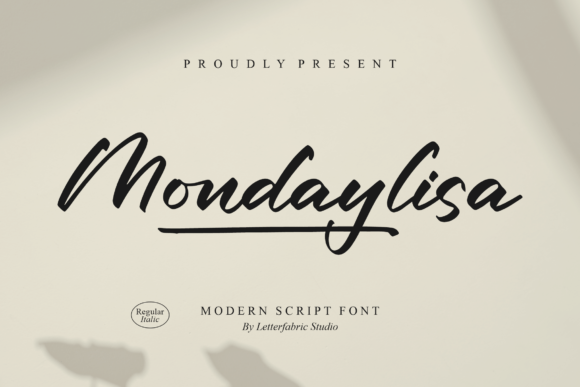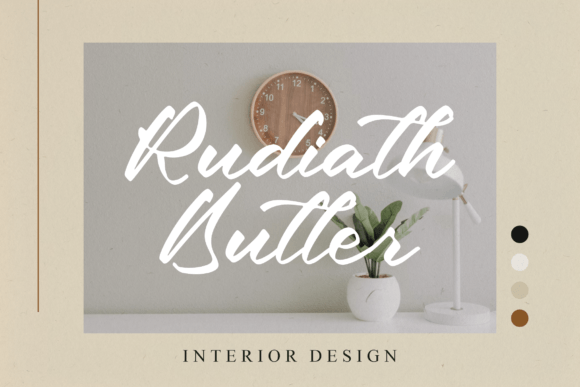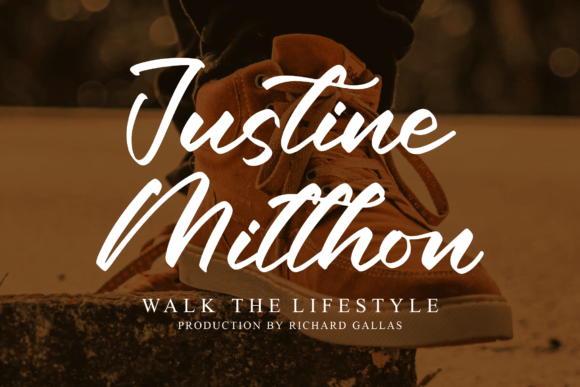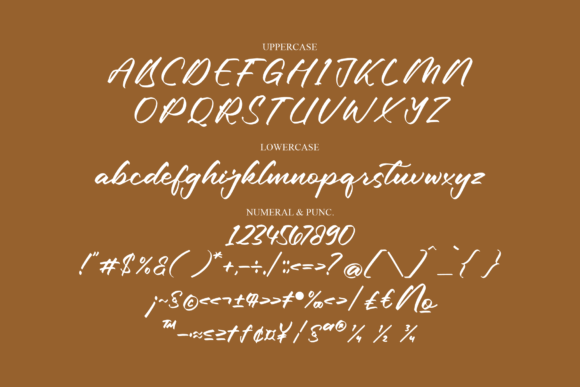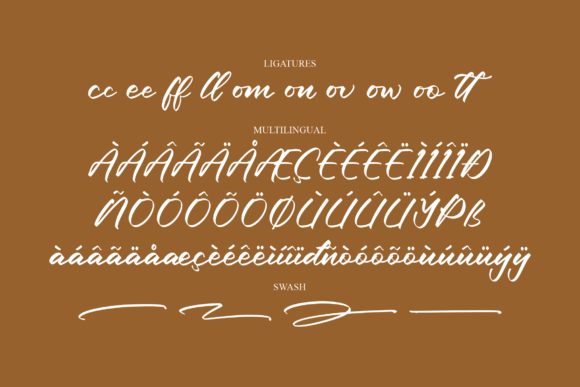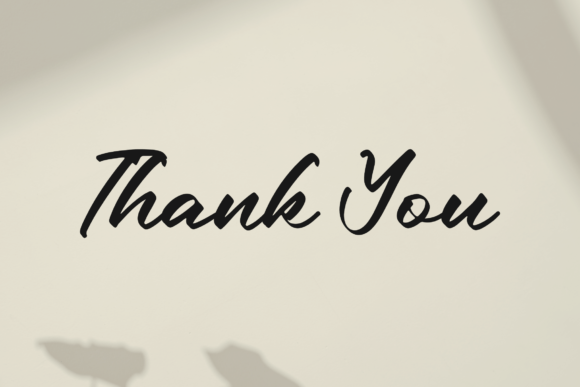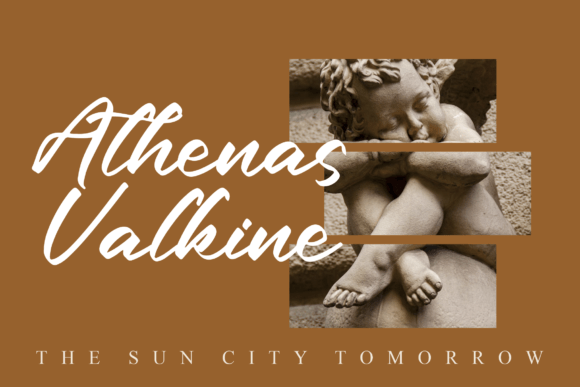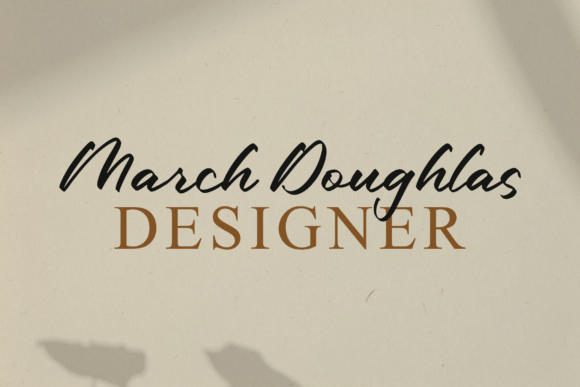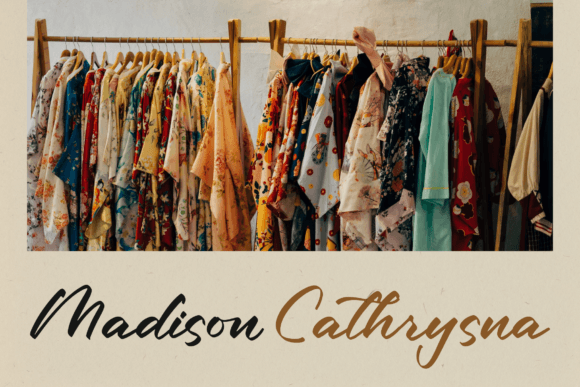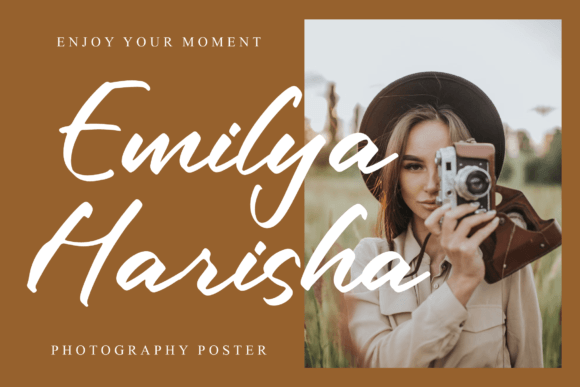
Mondaylisa Font
About Mondaylisa Font
Mondaylisa is a versatile and contemporary script font that seamlessly blends modernity with elegance, making it an ideal choice for a wide range of creative projects. Whether you are working on logos, branding initiatives, homeware designs, product packaging, personalized mugs, inspiring quotes, eye-catching posters, chic shopping bags, trendy T-shirt graphics, captivating book covers, stylish name cards, elegant invitation cards, heartfelt greeting cards, unique labels, professional photography projects, subtle watermarks, special events, or any other creative endeavors that demand a touch of exquisite script, Mondaylisa is your perfect companion.
In the world of branding, Mondaylisa brings a fresh and sophisticated vibe to your logo design and branding projects. Its contemporary script style conveys a sense of modernity and creativity, making your brand stand out and leave a lasting impression.
Homeware designs get a trendy and elegant twist with Mondaylisa. Whether you’re designing decorative items, textiles, or kitchenware, this font adds a touch of chic sophistication to your creations, making them appealing to modern aesthetics.
Product packaging benefits from Mondaylisa’s versatility by adding a stylish and personalized script element to your designs. This font helps your products shine on the shelves and captures the attention of potential customers.
Custom mugs are an ideal canvas for personalization. Use Mondaylisa to create mugs with unique messages or designs that are not only beautiful but also contemporary and stylish.
Quotes and posters take on a modern and artistic flair with Mondaylisa. It’s perfect for conveying inspirational messages or showcasing your creativity in a visually striking way.
Shopping bags become fashion statements with Mondaylisa. The font’s chic script adds a sense of style to your bags, making them not just carriers but also fashion accessories.
T-shirt designs become trendier and more appealing when crafted with Mondaylisa. Its contemporary script can add a touch of sophistication to your clothing line.
Book covers get a modern and captivating touch with Mondaylisa. Whether it’s for titles or author names, this font helps your books stand out on the shelves and in digital libraries.
Name cards and invitation cards take on an elegant and personalized look with Mondaylisa. It sets the tone for special occasions, leaving a lasting impression on recipients.
Greeting cards become heartfelt and memorable when designed with Mondaylisa’s beautiful script. It adds a personal and artistic touch to your messages.
Labels for various purposes, from product labeling to gift tags, get a modern and stylish makeover with Mondaylisa.
In the realm of photography, Mondaylisa can be used as a watermark to subtly but elegantly brand your images.
For special events, Mondaylisa helps you create materials that exude modernity and style, setting the stage for unforgettable moments.
In summary, Mondaylisa is a contemporary and beautiful script font that enhances the visual appeal of a wide variety of projects, adding a touch of elegance and creativity to your designs. Its versatility and modernity make it an invaluable tool for designers and creatives looking to make a strong visual impact.